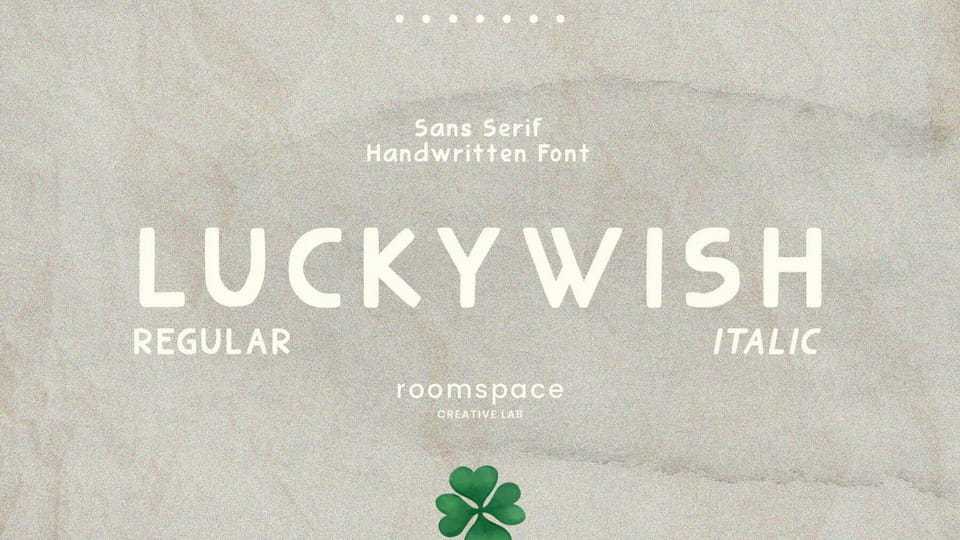
Download Luckywish font, a loyal partner to designers, writers, and creators alike. With its sans-serif characteristics, this font is easy to use and suitable for a variety of creative projects.